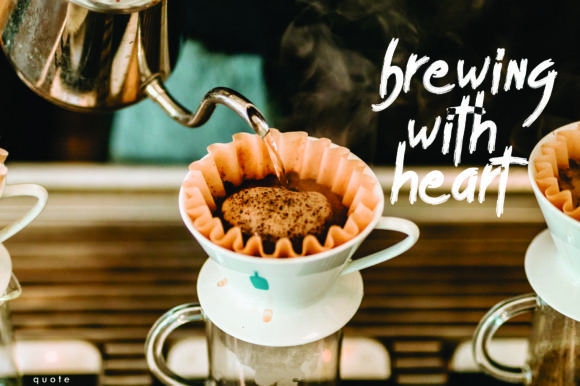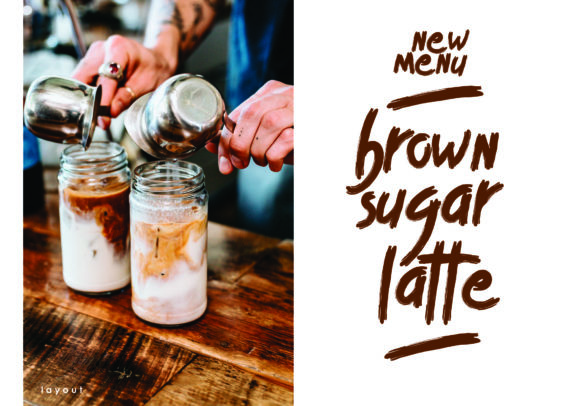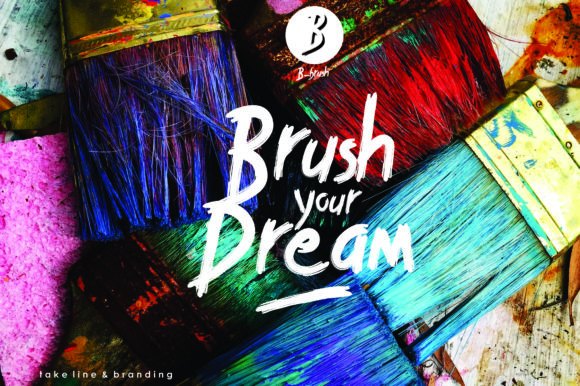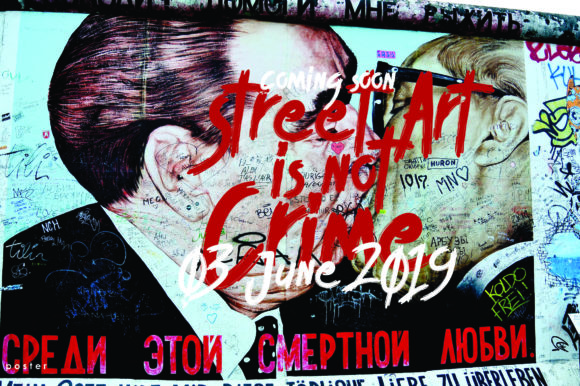
Introducing Excelco Brush Font: A Striking Typeface Inspired by Brush Strokes and Coffee
The Excelco Brush Font is a unique and captivating typeface that has been making waves in the design community. Inspired by the fluidity of brush strokes and the warmth of coffee, this font is perfect for designers and crafters looking to add a touch of personality to their projects. In this article, we’ll dive into the world of Excelco Brush Font, exploring its features, uses, and benefits.
The Inspiration Behind Excelco Brush Font
The Excelco Brush Font was born out of a passion for creative expression. Its creator drew inspiration from the dynamic movements of brush strokes, which are often used in traditional art forms. The font’s rugged, hand-crafted feel is reminiscent of a brush’s gentle caress on paper. Additionally, the warmth and richness of coffee played a significant role in shaping the font’s character. The result is a typeface that exudes a sense of comfort, approachability, and creativity.
Key Features of Excelco Brush Font
The Excelco Brush Font boasts several key features that make it a standout typeface:
- Unique Brush Stroke Effect: The font’s brush stroke effect gives it a distinctive, hand-painted look that’s perfect for adding a touch of whimsy to your designs.
- Variety of Weights and Styles: The Excelco Brush Font comes in a range of weights and styles, allowing you to experiment with different looks and feels.
- Highly Legible: Despite its artistic nature, the font remains highly legible, making it suitable for use in a variety of applications.
- OpenType Features: The font includes OpenType features, such as ligatures and stylistic alternates, which allow for greater creative flexibility.
Uses for Excelco Brush Font
The Excelco Brush Font is incredibly versatile and can be used in a wide range of projects, including:
- Posters and Flyers: Add a touch of personality to your posters and flyers with the Excelco Brush Font’s unique brush stroke effect.
- Magazines and Editorial Design: Use the font to create eye-catching headlines and add visual interest to your magazine layouts.
- Menus and Restaurant Branding: The font’s warm, inviting feel makes it perfect for use in menus, restaurant branding, and packaging.
- Branding and Packaging: Use the Excelco Brush Font to create custom branding and packaging that stands out from the crowd.
The Excelco Brush Font offers several benefits for designers and crafters:
- High-Quality Design: The font’s high-quality design ensures that it will look great in any project, from print to digital.
The Excelco Brush Font is a striking typeface that’s perfect for designers and crafters looking to add a touch of creativity to their projects. With its unique brush stroke effect, variety of weights and styles, and highly legible design, this font is sure to become a staple in any designer’s toolkit. Whether you’re working on a poster, magazine, menu, or branding project, the Excelco Brush Font is an excellent choice. So why not give it a try and see the difference it can make in your designs?